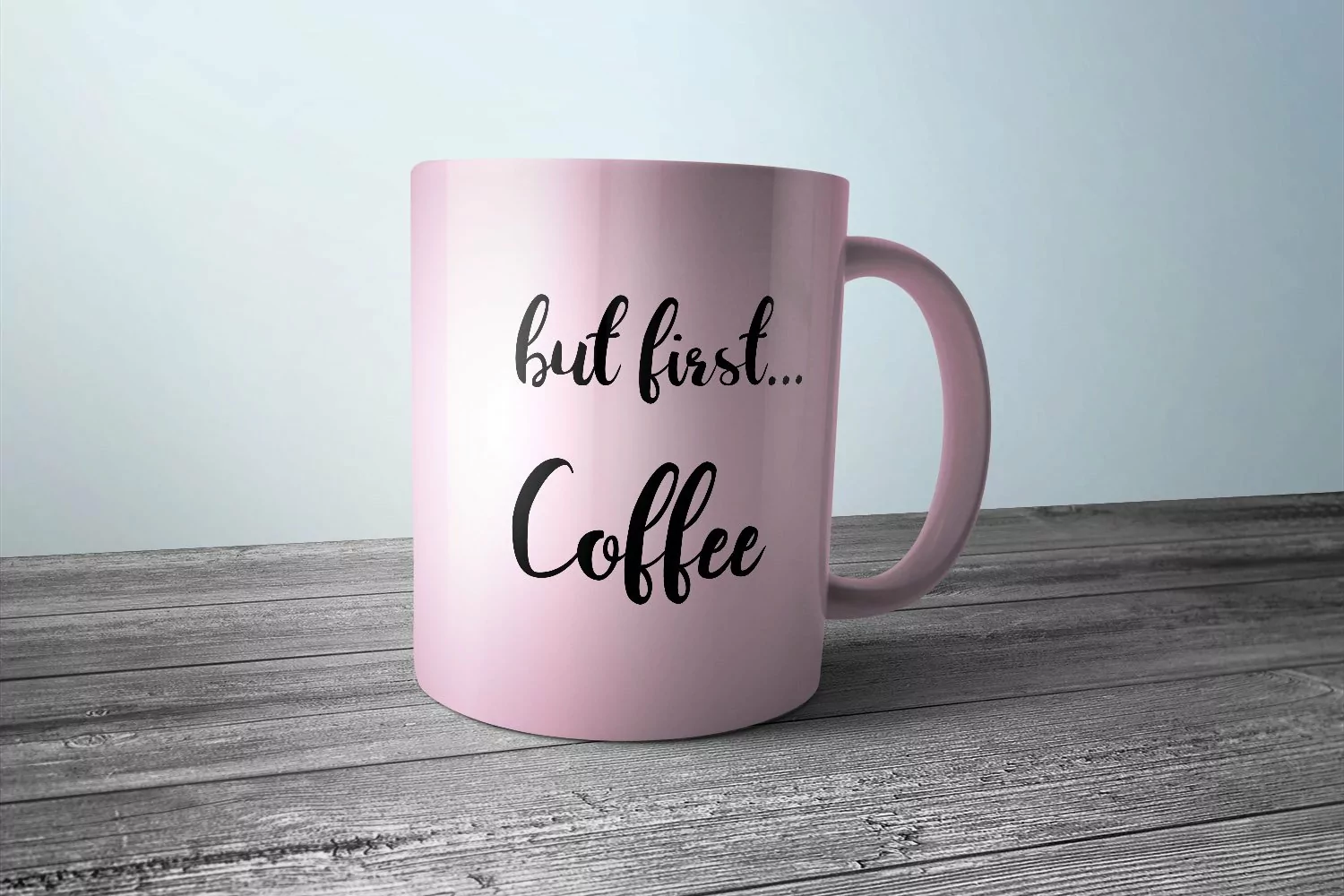
Juanita Brush Script
Juanita Brush Script is a hand-crafted brush font that comes in two styles, smooth and rough.
An imperfect handwritten brush script to replicate a handwritten look.
Custom ligatures, currency glyphs and decorative swashes are included in both the smooth and rough styles of Juanita Brush Script.